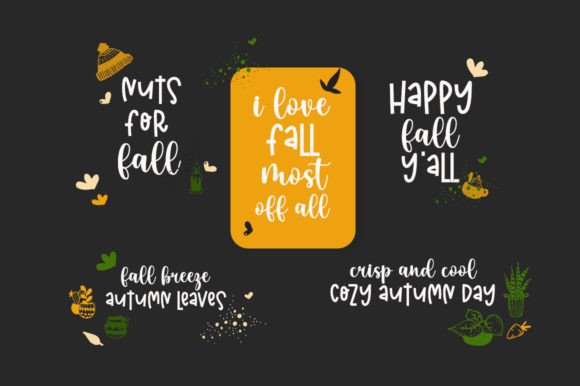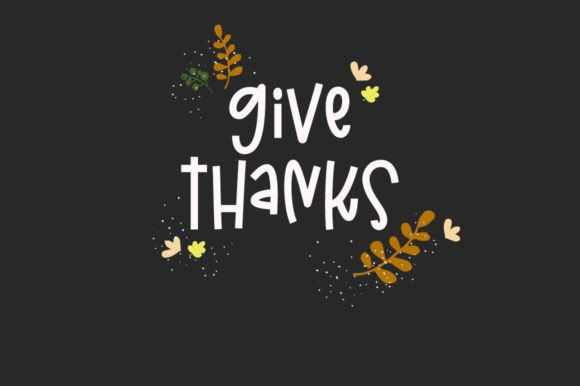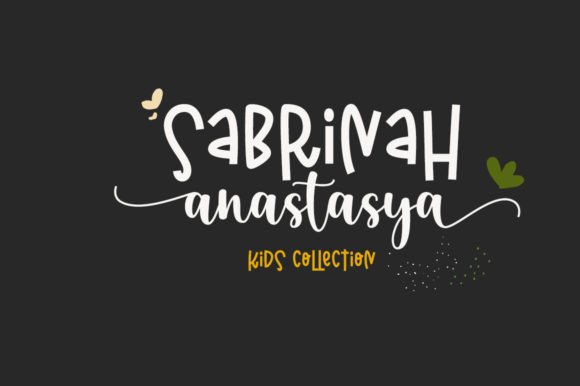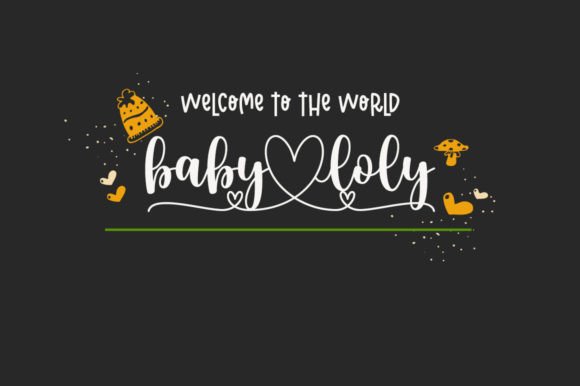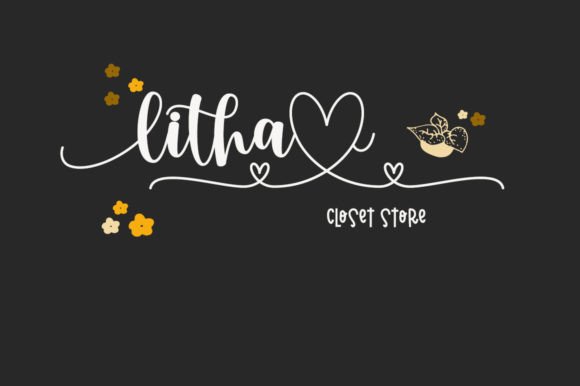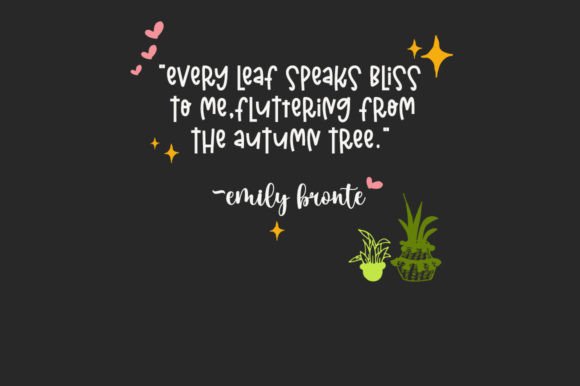
Introduction to Move Only Font
Have you ever been stuck on a design project, searching for the perfect font to bring it to life? That’s where the Move Only Font comes in – a game-changing duo font that will elevate your creative project to new heights. With its luxurious script and sleek sans serif styles, this versatile font is sure to add a touch of sophistication to any design.
Whether you’re a seasoned designer or just starting out, the Move Only Font is an invaluable resource that will help you create high-quality designs with ease. Plus, with its PUA encoded features, you’ll have access to all the amazing glyphs and ligatures you need to take your project to the next level. And the best part? It’s available for free download, making it an absolute must-have for any design enthusiast.
Imagine having the perfect font at your fingertips, ready to bring your design vision to life. With the Move Only Font, that’s exactly what you’ll get – a transparent background and a world of creative possibilities waiting to be explored.
Key Features of Move Only Font
- Unique, modern design that can be used for various purposes, including logos, icons, and graphics.
Honest Review: Move Only Font
As a designer, I’m always on the lookout for new and innovative resources to elevate my creative projects. Recently, I had the chance to work with the Move Only Font, and I must say, it’s a game-changer.
- ✨ High-quality design: The Move Only Font boasts a sleek and modern aesthetic, making it perfect for a wide range of design applications.
- ⚠️ Limited character set: While the Move Only Font is well-suited for headings and titles, it may not be the best choice for body text due to its limited character set.
- ⚠️ Not suitable for small sizes: As with any font, it’s essential to test the Move Only Font at various sizes to ensure it remains legible and visually appealing.
Overall, I’m impressed with the Move Only Font’s unique design and versatility. With its high-quality aesthetic and transparent background, it’s an excellent addition to any designer’s toolkit. However, its limitations should be carefully considered when selecting the font for a specific project.
Move Only Font
The Move Only Font is a high-quality design resource perfect for adding a touch of elegance to your creative projects. With a transparent background, this font can be easily integrated into various design tools.
Tips for Getting the Most Out of Move Only Font
To get the most out of the Move Only Font, try experimenting with different font sizes, colors, and combinations to create unique and eye-catching designs.
Common Use Cases for Move Only Font
The Move Only Font is perfect for use in a variety of creative projects, including social media graphics, presentations, and business cards. Its high-quality design and transparent background make it a versatile and useful design resource.